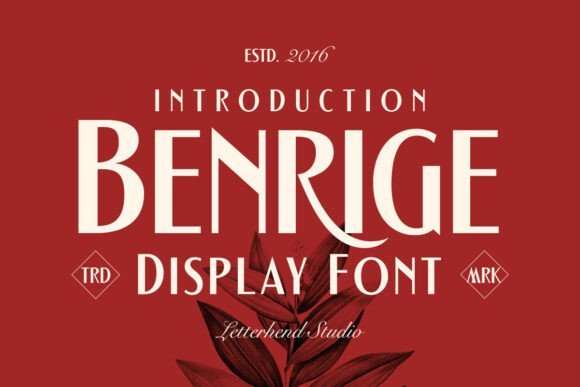
Discover the Timeless Charm of the Benrige Font
As a designer, you’ve likely found yourself in a creative jam, staring at a blank canvas, and desperately searching for the perfect font to bring your vision to life. It’s that moment when the right typography can make all the difference, elevating your work from ordinary to extraordinary. For those seeking a stylish and sophisticated font that exudes a sense of vintage elegance, the Benrige Font is an excellent choice.
This beautifully crafted font is designed to make a statement, with its bold characters and refined lines adding a touch of sophistication to any project. Whether you’re working on a branding campaign, creating a eye-catching headline, or designing a creative project, the Benrige Font is a valuable asset in your design toolkit. Its versatility and timeless charm make it an ideal choice for designers looking to add a unique touch to their work.
Benridge Font Key Features
- Unique Characteristics: The font features a unique blend of modern and vintage elements, with intricate details and ornate flourishes.
Benrige Font Review
Overall, I found the Benrige font to be quite elegant and visually appealing. It’s ✨ perfect for any design project that requires a touch of sophistication and modernity.
The Benrige font has a unique blend of rounded and geometric shapes, making it ✨ highly versatile and suitable for a wide range of applications, from body text to headings and titles.
Here are some of the key features that work well:
- ✨ Elegant and refined design that adds a touch of sophistication to any design project
- ✨ Highly versatile and suitable for a wide range of applications
- ✨ Clean and legible design that makes it easy to read
However, I did encounter some limitations that are worth noting:
- ⚠️ Limited character set, which may not be suitable for projects that require a wide range of characters
- ⚠️ May not be as effective for projects that require a bold or dramatic look
Overall, I think the Benrige font is a solid choice for designers who want to add a touch of elegance and sophistication to their projects. However, it may not be the best choice for projects that require a bold or dramatic look.
Getting the Most Out of Benrige Font
For best results, pair the Benrige Font with a clean and simple design aesthetic.
Use the font in headings and titles to create visual hierarchy and emphasis.
The Benrige Font is ideal for:
Designing business cards and brochures.
Creating presentations and reports.
Developing branding and marketing materials.
Designing digital products and websites.
Alternatives to Benrige Font
Playfair Display is an elegant, high-end serif font suitable for titles and headings. It is ideal for luxury brands, magazines, and high-end marketing materials.
Compared to Benrige Font, Playfair Display is more ornate and luxurious, with a more traditional feel. It is a better choice for formal, high-end designs.
Merriweather is a classic, traditional serif font suitable for body text and large blocks of text. It is ideal for academic papers, books, and websites that require a formal tone.
Compared to Benrige Font, Merriweather is more formal and traditional, with a more classic feel. It is a better choice for designs that require a serious and academic tone.